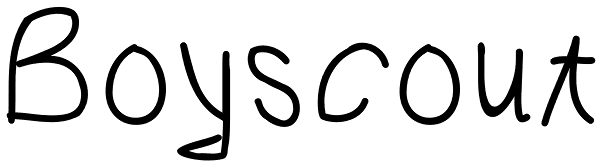
Boyscout
Digitized from the handwriting of Simone Wilkie's son, Boyscout is a font that demonstrates a mix between the power of learning and individual creative development of a seven year old child. The struggle to conform with observation appears in most...